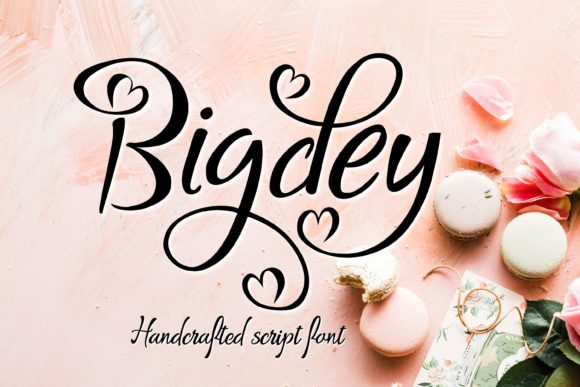
Introducing Bigdey Font, a captivating script font designed to tug at your heartstrings and elevate your creative projects to new heights. Created by the talented Eva Barabasne Olasz, this font exudes romance and beauty with its delicate curves and whimsical flourishes.
Bigdey Font is not just a typographic masterpiece, it's a visual symphony that will mesmerize anyone who lays eyes on it. With its graceful dance and abundant movement, this font breathes life into your designs, making them truly come alive. Whether you're designing wedding invitations, love letters, or heartfelt quotes, Bigdey Font effortlessly adds a touch of elegance and charm to any project.
Immerse yourself in the world of Bigdey Font, where every stroke of the pen is filled with emotion and passion. Let the graceful curves and intricate details of this script font transport you to a realm of beauty and inspiration. Captivate your audience with its unique charm and leave a lasting impression that resonates deep within their hearts.
But Bigdey Font is not just a pretty face, it's also a versatile tool for all your creative needs. Whether you're a professional designer or a DIY enthusiast, this font offers endless possibilities. With its wide range of characters and glyphs, you can effortlessly create stunning logos, branding materials, social media posts, and more.